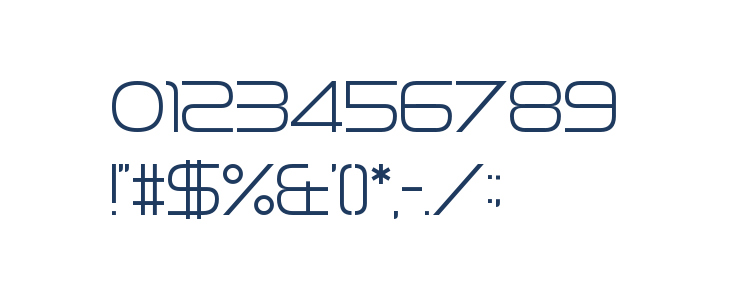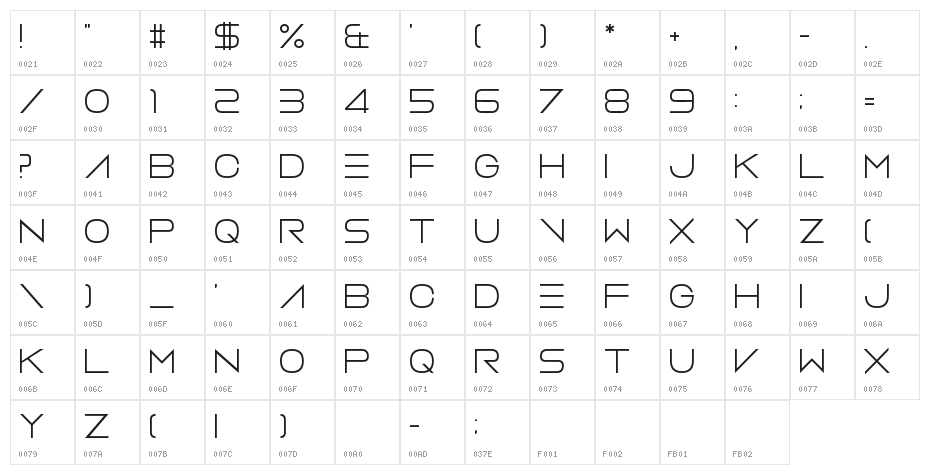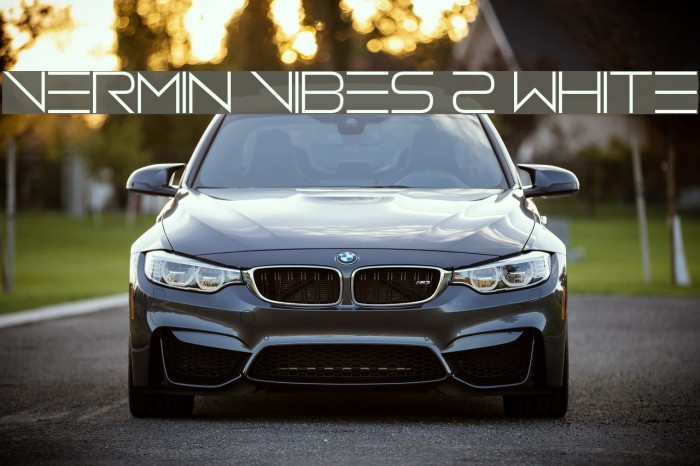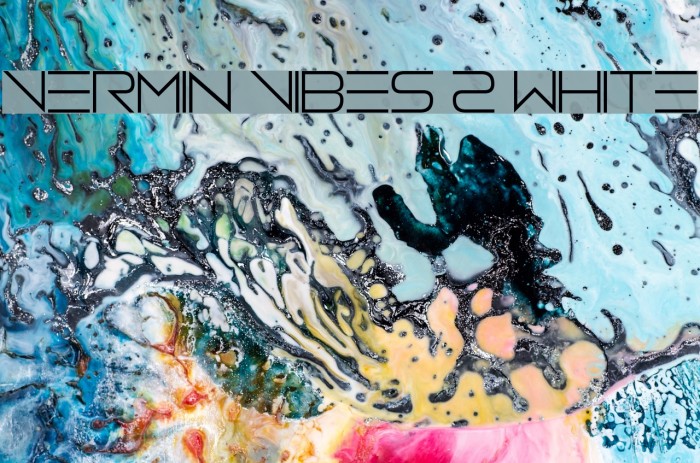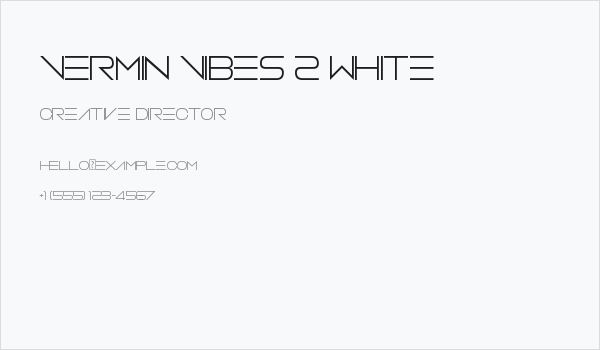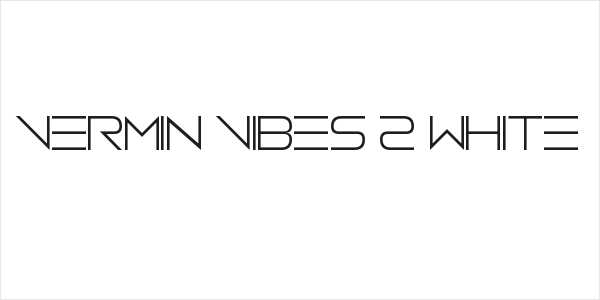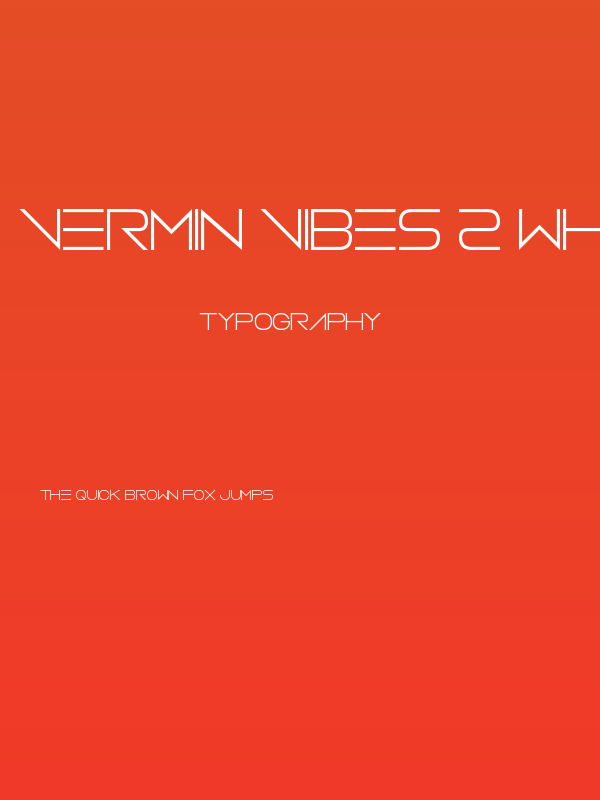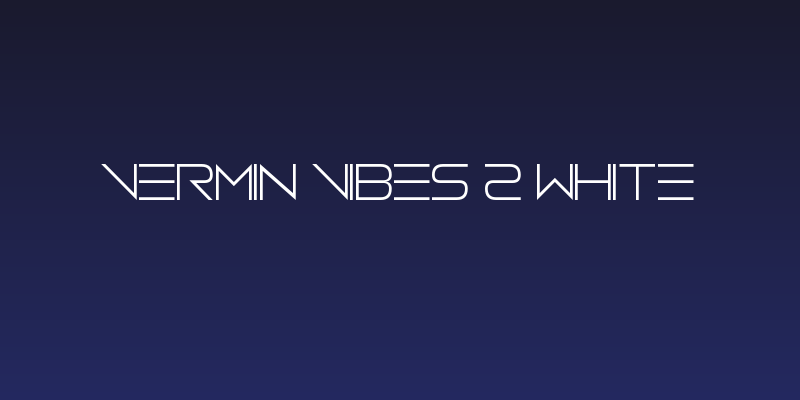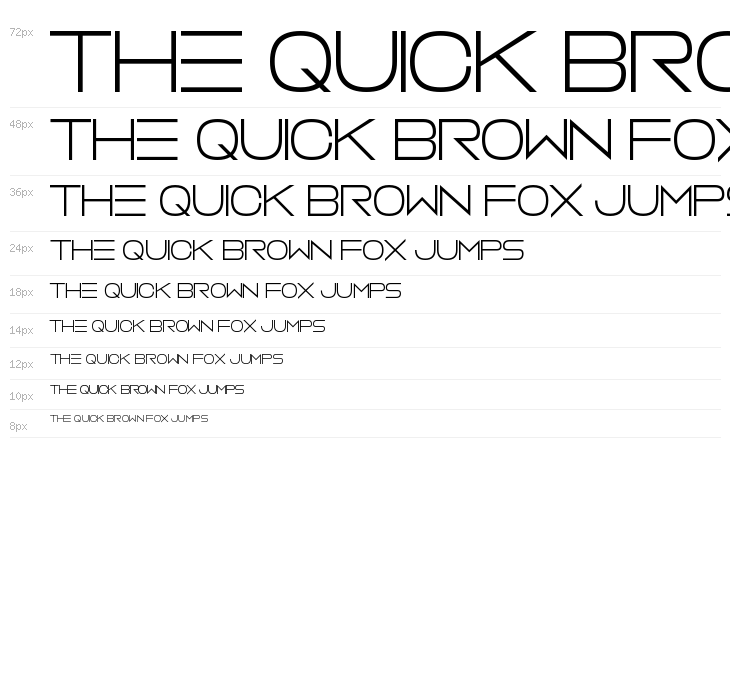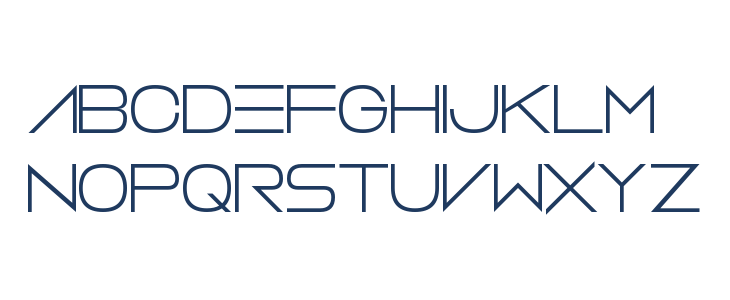
Vermin Vibes 2 White Font
Vermin Vibes 2 White Description
This font features a modern, geometric design with clean lines and a futuristic aesthetic. The uppercase letters are crafted with a minimalist approach, emphasizing straight lines and sharp angles. The lowercase letters maintain the same geometric style, ensuring consistency across the typeface. Numbers are designed with a similar precision, making them highly legible. Special characters are included, each reflecting the font's overall sleek and contemporary style. The uniformity in stroke width across all characters contributes to a cohesive and balanced appearance, suitable for a variety of digital and print applications.
| Use Case | Headlines, Logos, Digital interfaces |
| Proposed Projects | Ideal for technology branding, modern advertising, digital interfaces, and futuristic-themed designs. |